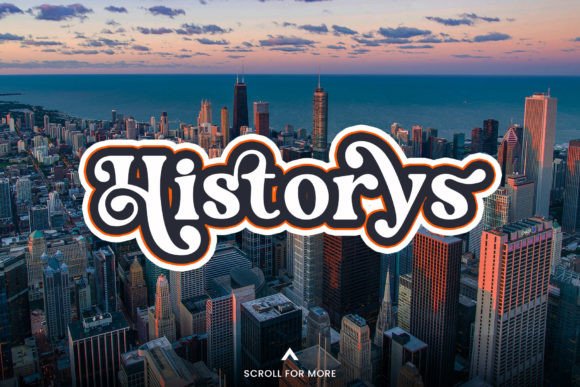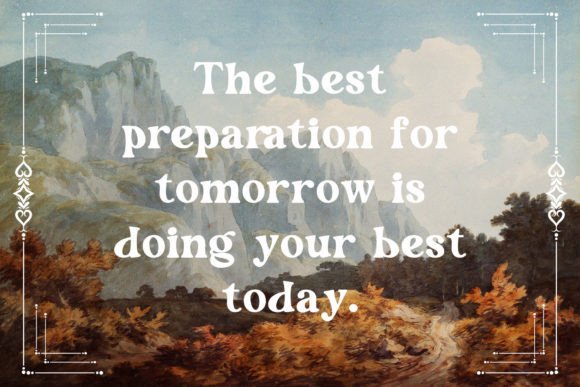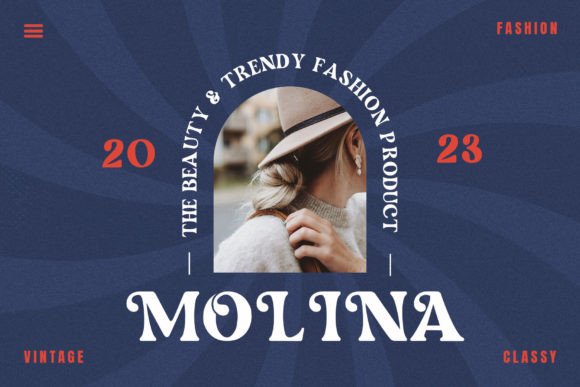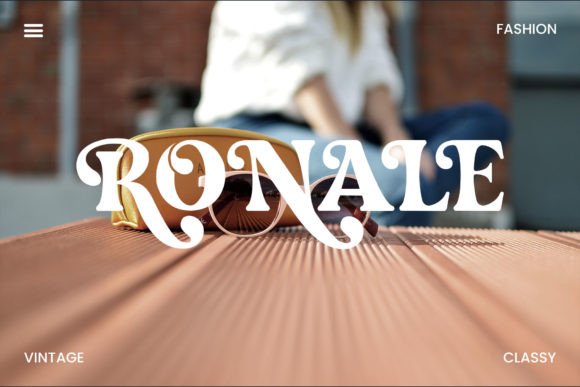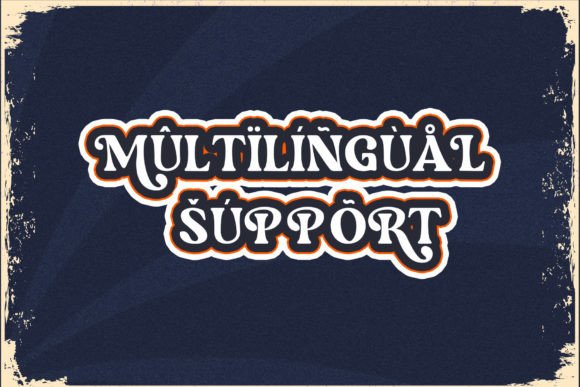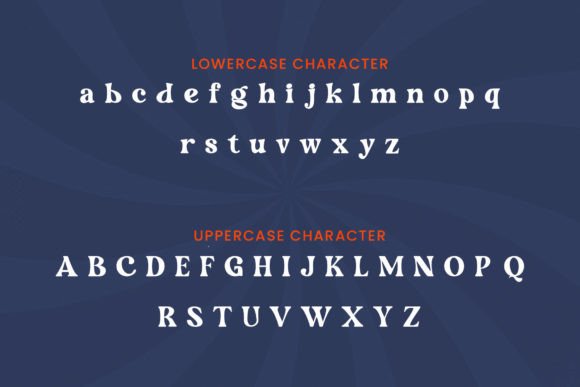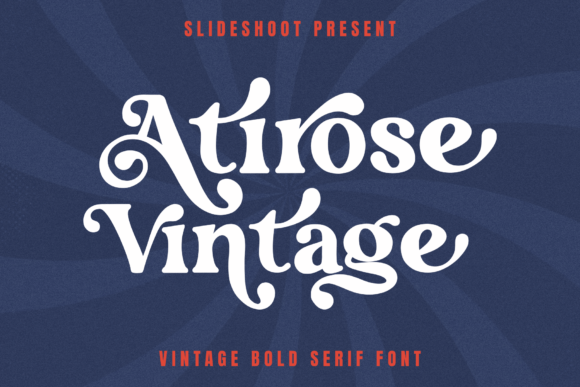
Atirose Vintage Font: Elevate Your Designs with Retro Sophistication
In the world of typography, fonts play a crucial role in conveying the tone and aesthetic of a design. For designers and crafters seeking to add a touch of vintage elegance to their projects, Atirose Vintage Font is an exceptional choice. This stunning font combines retro style with modern sophistication, making it perfect for branding, editorial projects, and vintage-inspired designs.
The Essence of Atirose Vintage Font
Atirose Vintage Font boasts a stylish, bold design that commands attention. Its sharp, confident serifs and precise letterforms create a powerful, attention-grabbing look that exudes class and style. The font’s unique blend of retro and modern elements makes it an excellent choice for designers looking to create distinctive and memorable designs.
Key Features of Atirose Vintage Font
- PUA Encoding: Atirose Vintage Font is PUA encoded, allowing effortless access to all delightful glyphs and swashes. This feature makes it easy to incorporate intricate details and flourishes into your designs.
- Retro Style with Modern Sophistication: The font seamlessly blends vintage charm with contemporary flair, resulting in a unique and captivating aesthetic.
- Versatility: Atirose Vintage Font is suitable for a wide range of design applications, including branding, editorial projects, packaging, and more.
- High-Quality Design: The font features precise letterforms and sharp serifs, ensuring a crisp and professional appearance in any design.
Applications of Atirose Vintage Font
Atirose Vintage Font’s versatility makes it an excellent choice for various design projects. Here are some examples of how you can utilize this exceptional font:
- Branding: Create a lasting impression with Atirose Vintage Font’s bold and sophisticated design. Use it for logos, business cards, and other marketing materials to establish a strong brand identity.
- Editorial Projects: Add a touch of elegance to your editorial designs, such as magazines, newspapers, and books. The font’s readability and style make it perfect for headlines, subheadings, and body text.
- Vintage-Inspired Designs: Atirose Vintage Font is ideal for creating designs that evoke a sense of nostalgia. Use it for posters, flyers, and other promotional materials to add a retro flair.
- Packaging Design: Make your products stand out with Atirose Vintage Font’s unique and attention-grabbing design. Use it for labels, packaging, and other product materials to create a lasting impression.
Tips for Using Atirose Vintage Font
To get the most out of Atirose Vintage Font, consider the following tips:
- Experiment with Font Sizes: Atirose Vintage Font looks stunning in various sizes. Experiment with different font sizes to find the perfect balance for your design.
- Pair with Complementary Fonts: Combine Atirose Vintage Font with complementary fonts to create a harmonious and visually appealing design.
- Take Advantage of Glyphs and Swashes: With PUA encoding, you can easily access and incorporate glyphs and swashes into your design. Use these elements to add intricate details and flourishes.
Atirose Vintage Font is an exceptional choice for designers and crafters seeking to add a touch of vintage elegance to their projects. Its unique blend of retro style and modern sophistication makes it perfect for a wide range of design applications. With its PUA encoding, precise letterforms, and sharp serifs, Atirose Vintage Font is sure to elevate your designs and leave a lasting impression.